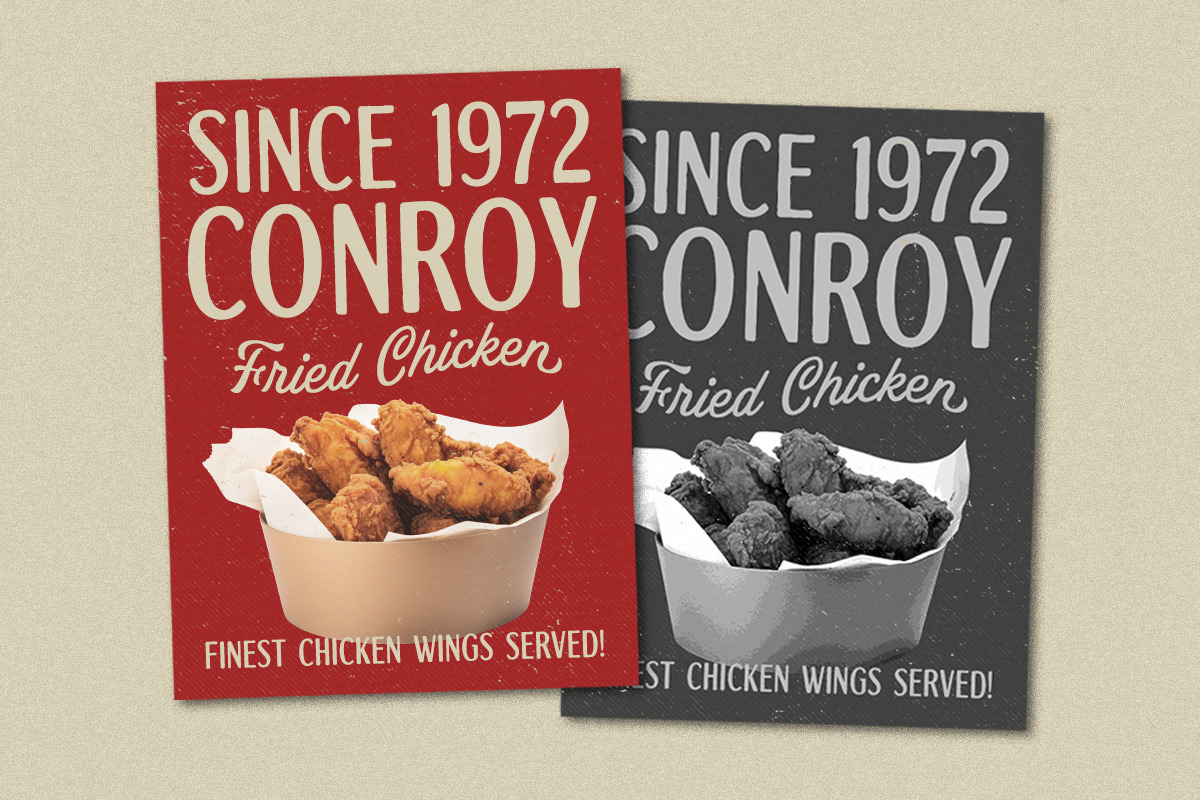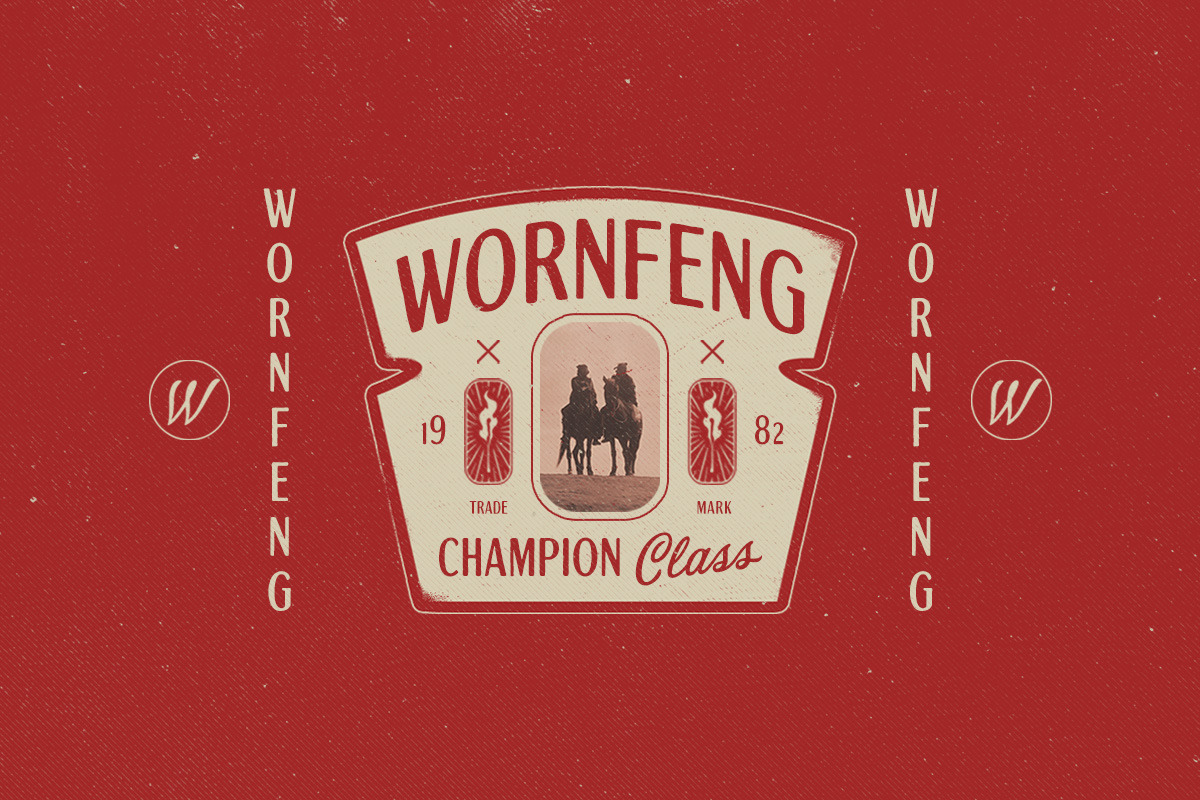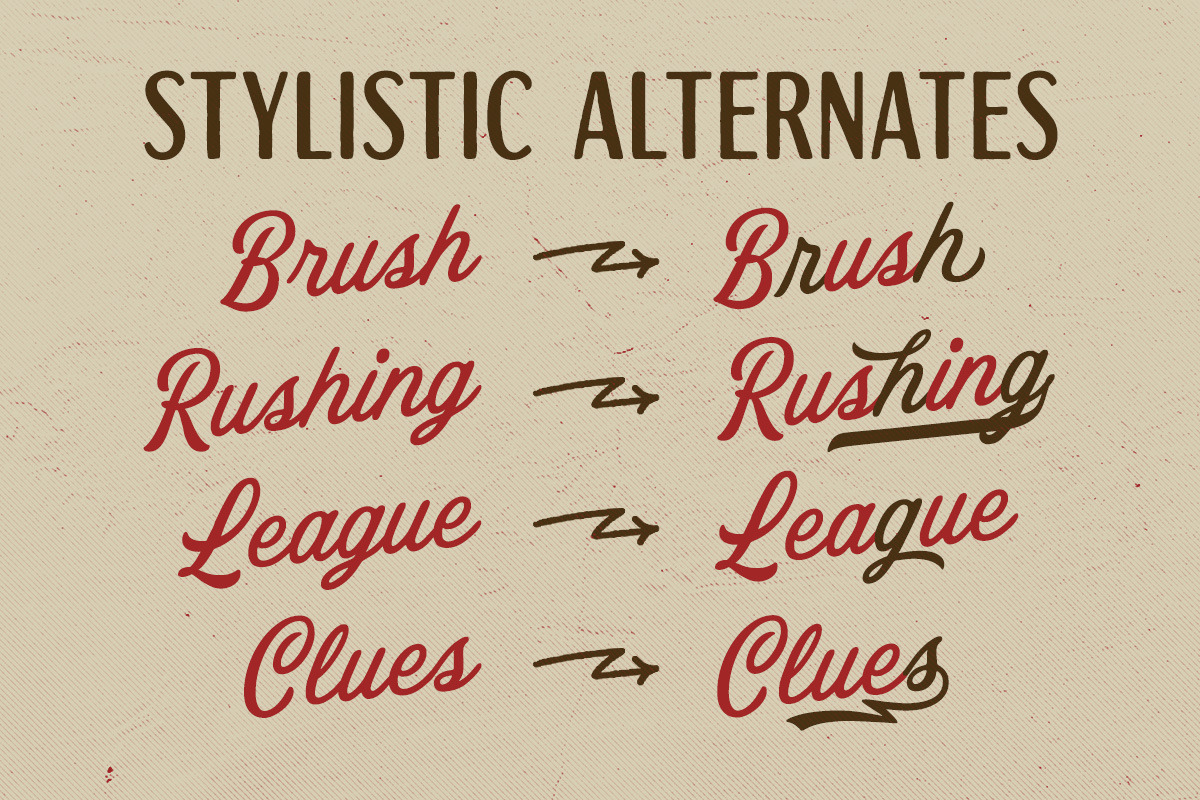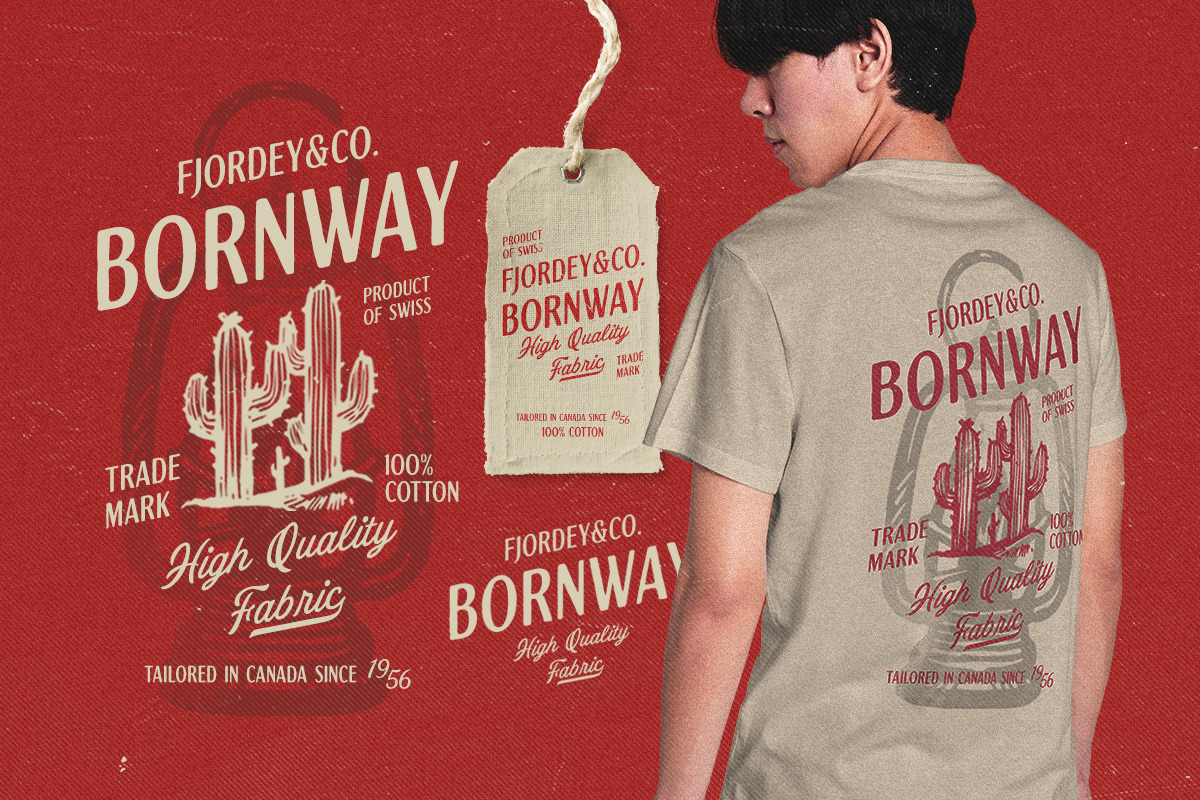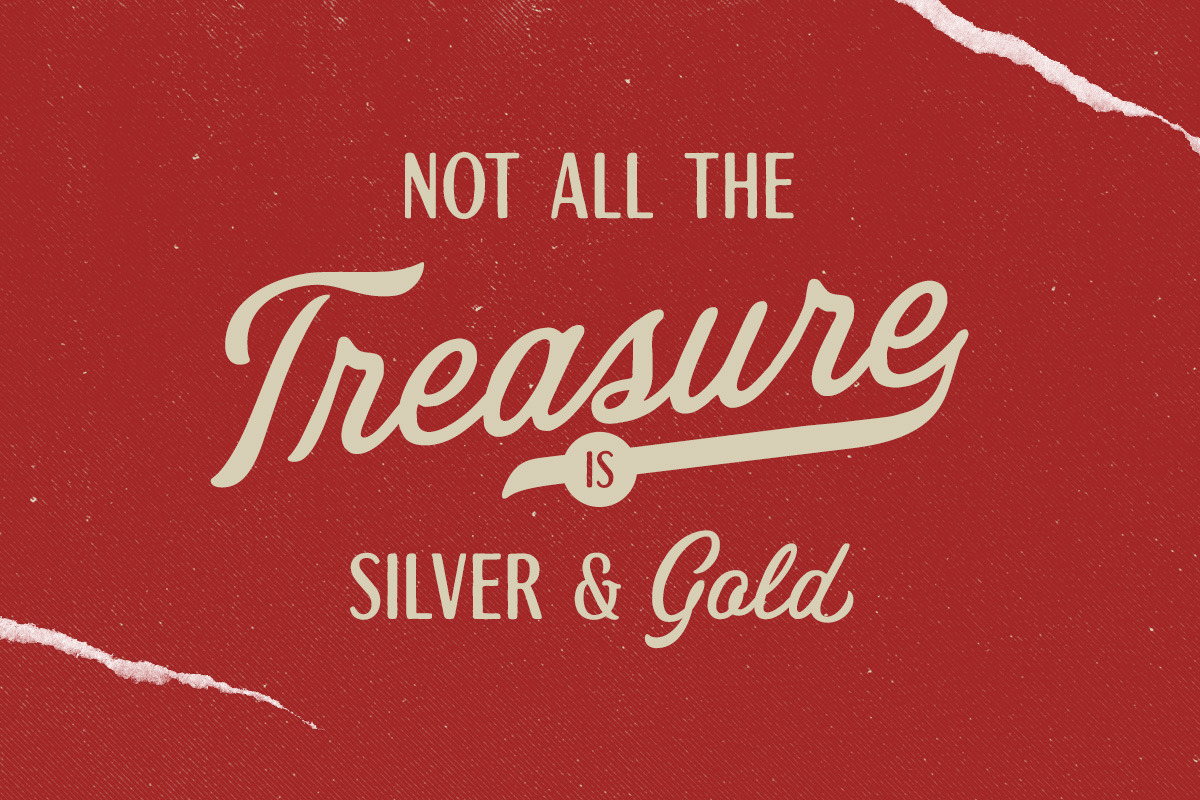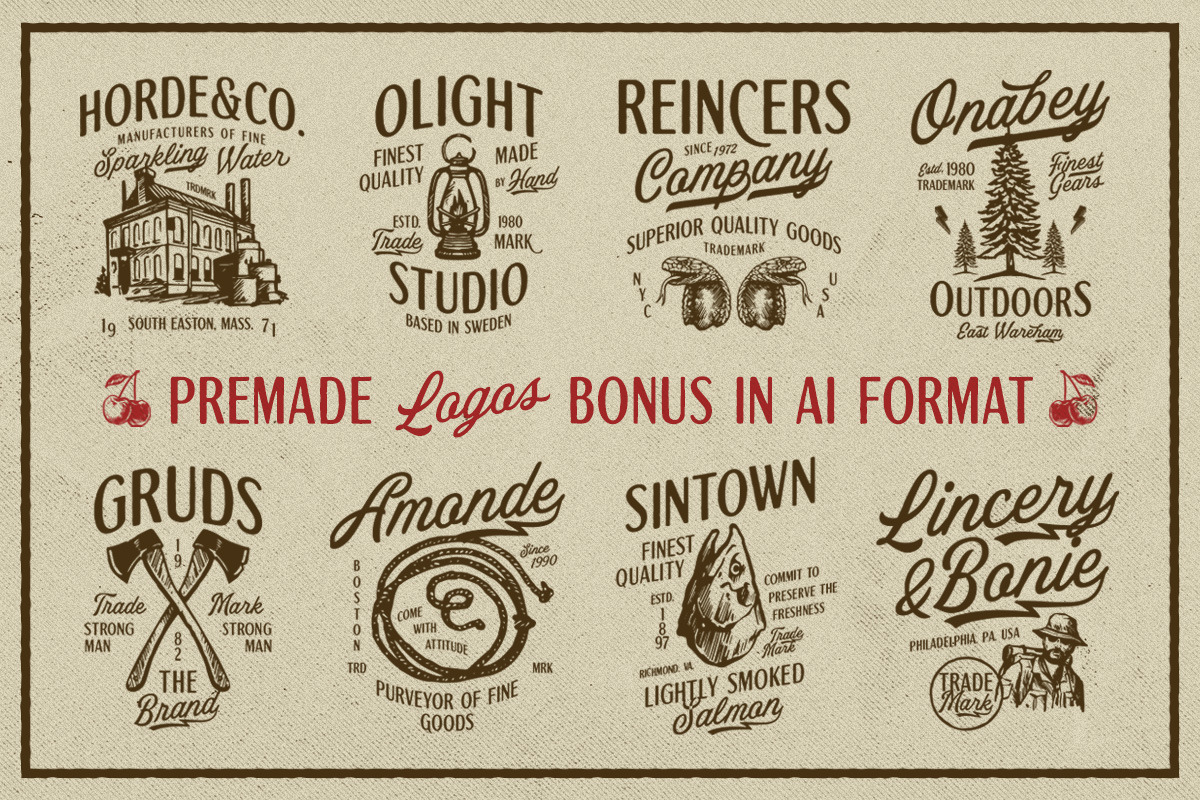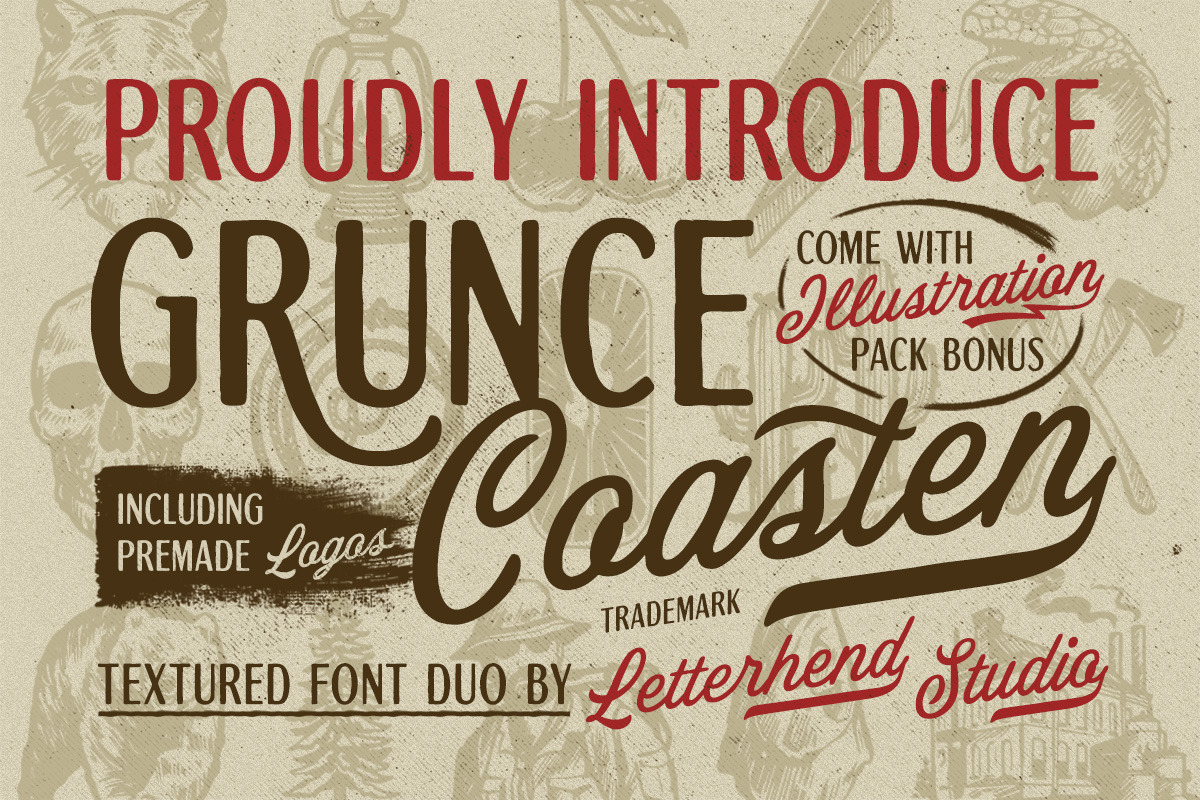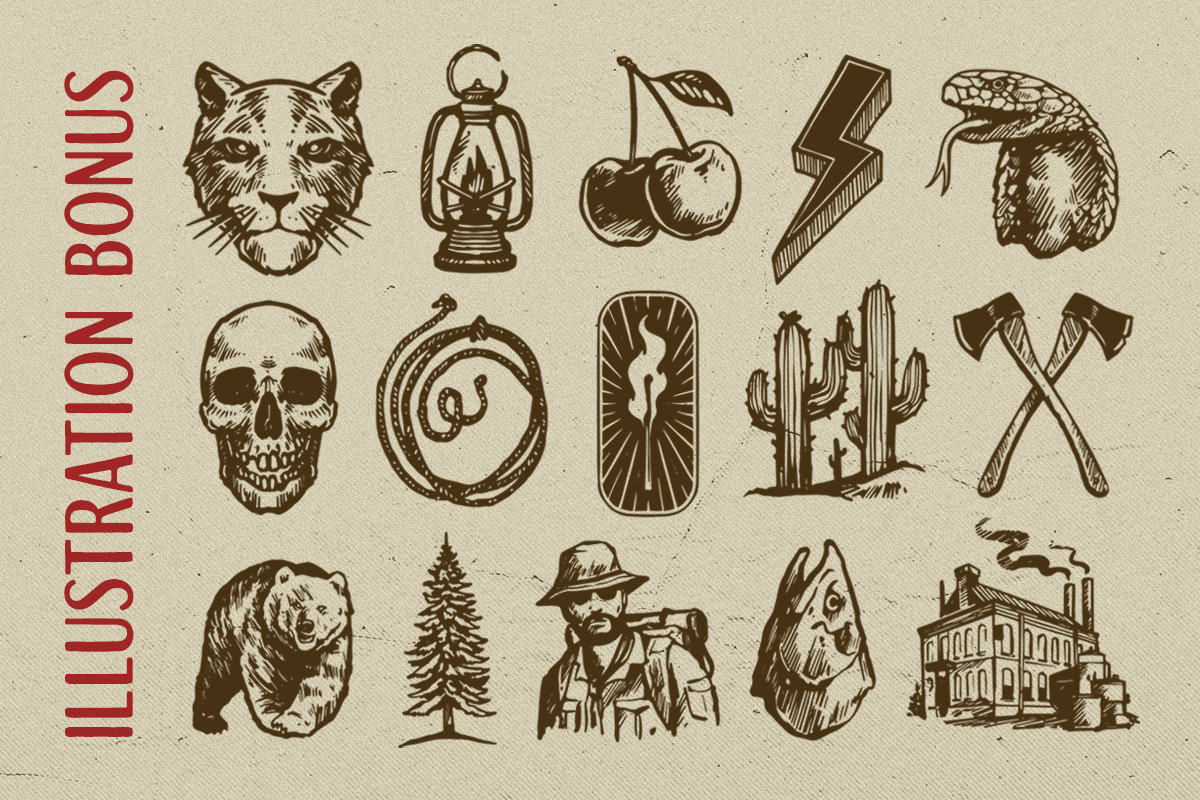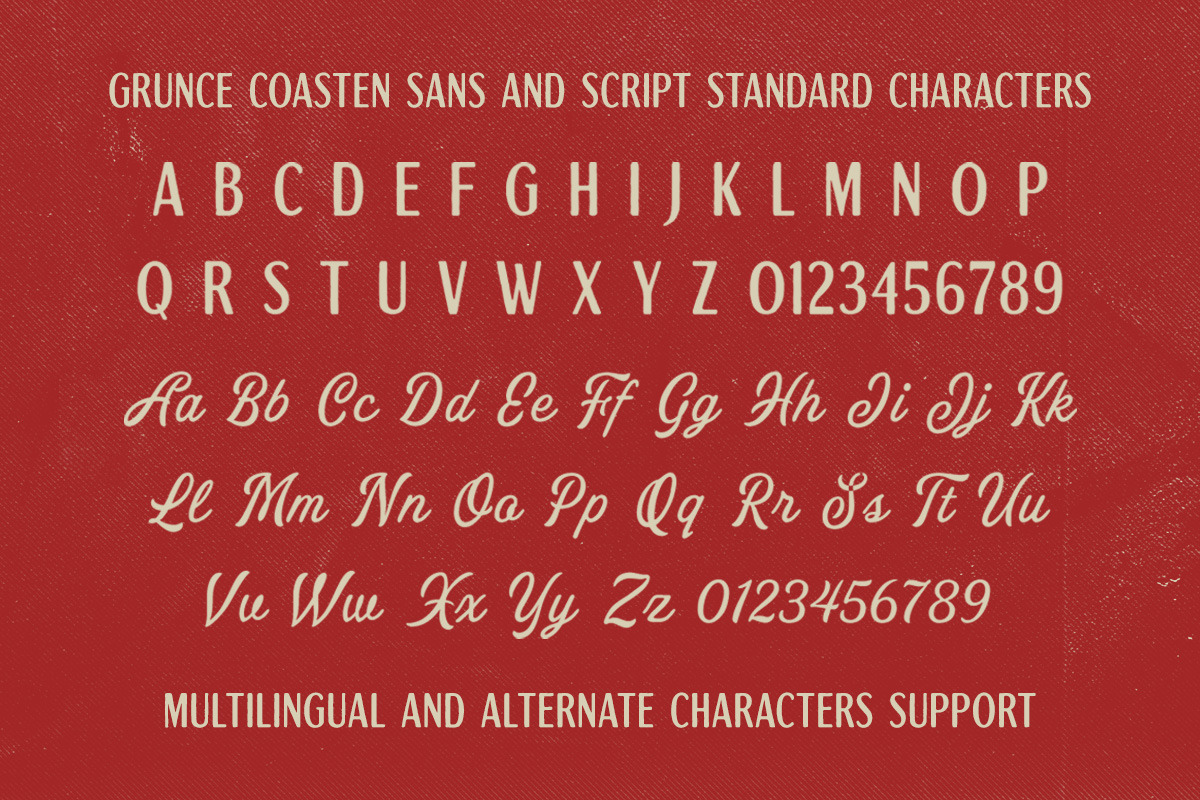
Grunce Coasten Font Duo
Grunce Coasten is a vintage font duo consist of a script paired with a sans serif with a touch of classic look and feel. It comes with bonus illustration!. This type of font perfectly made to be applied especially in logo, headline, signage and the other various formal forms such as invitations, labels, logos, magazines, books, greeting / wedding cards, packaging, fashion, make up, stationery, novels, labels or any type of advertising purpose.